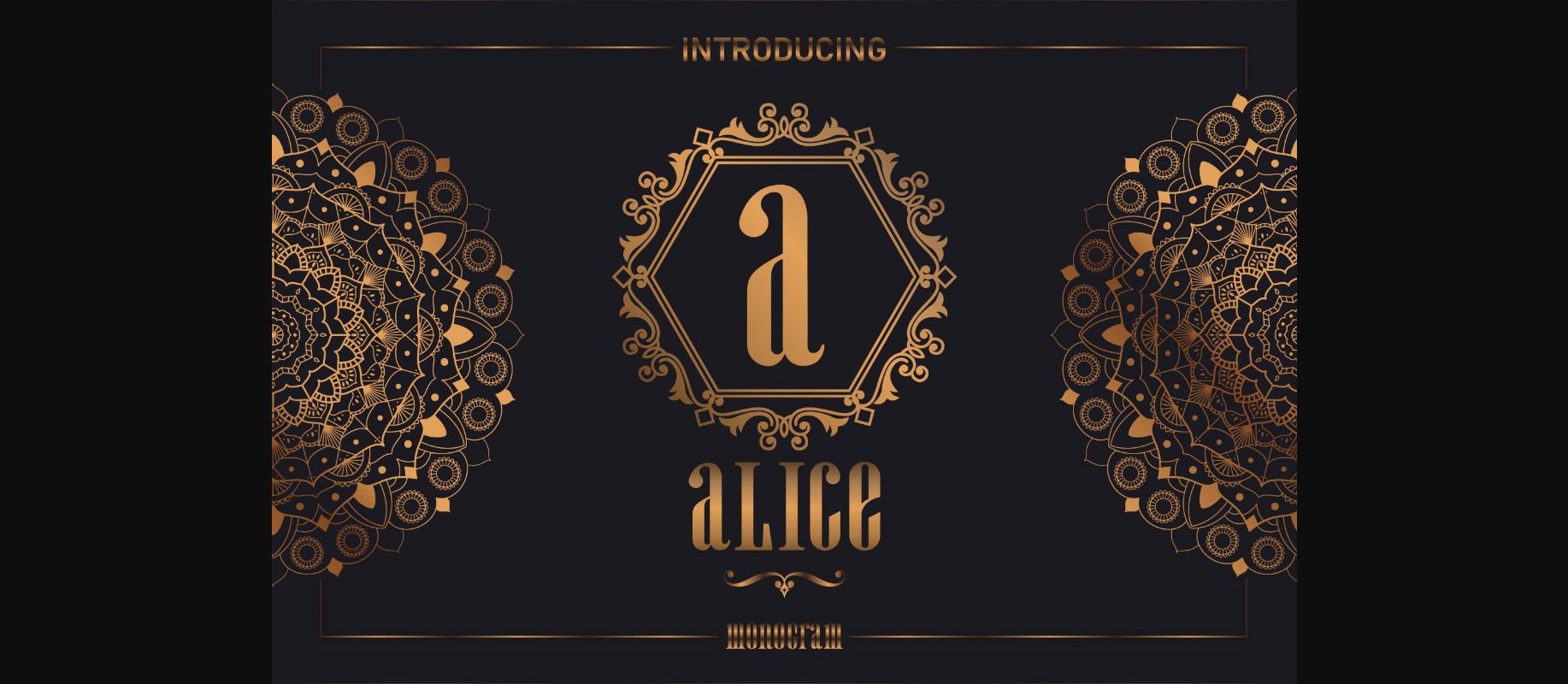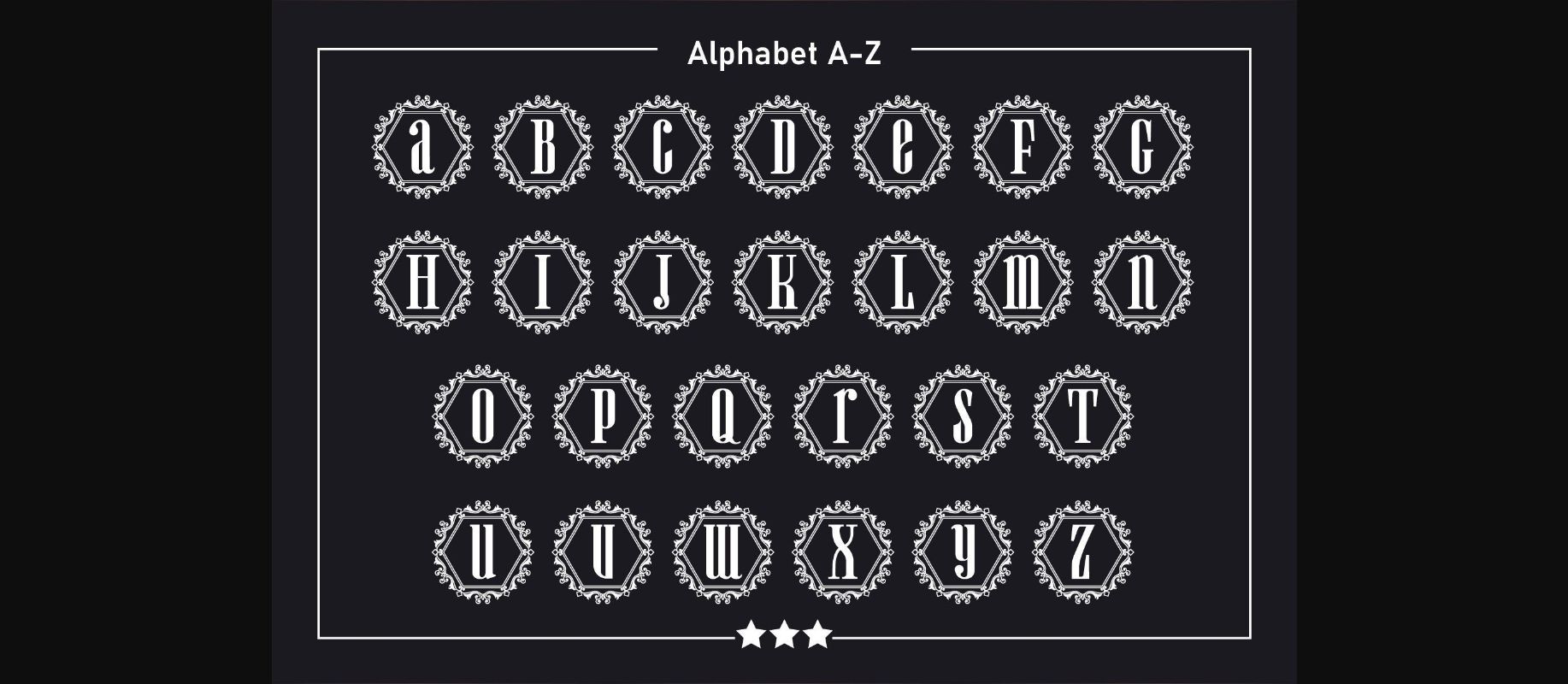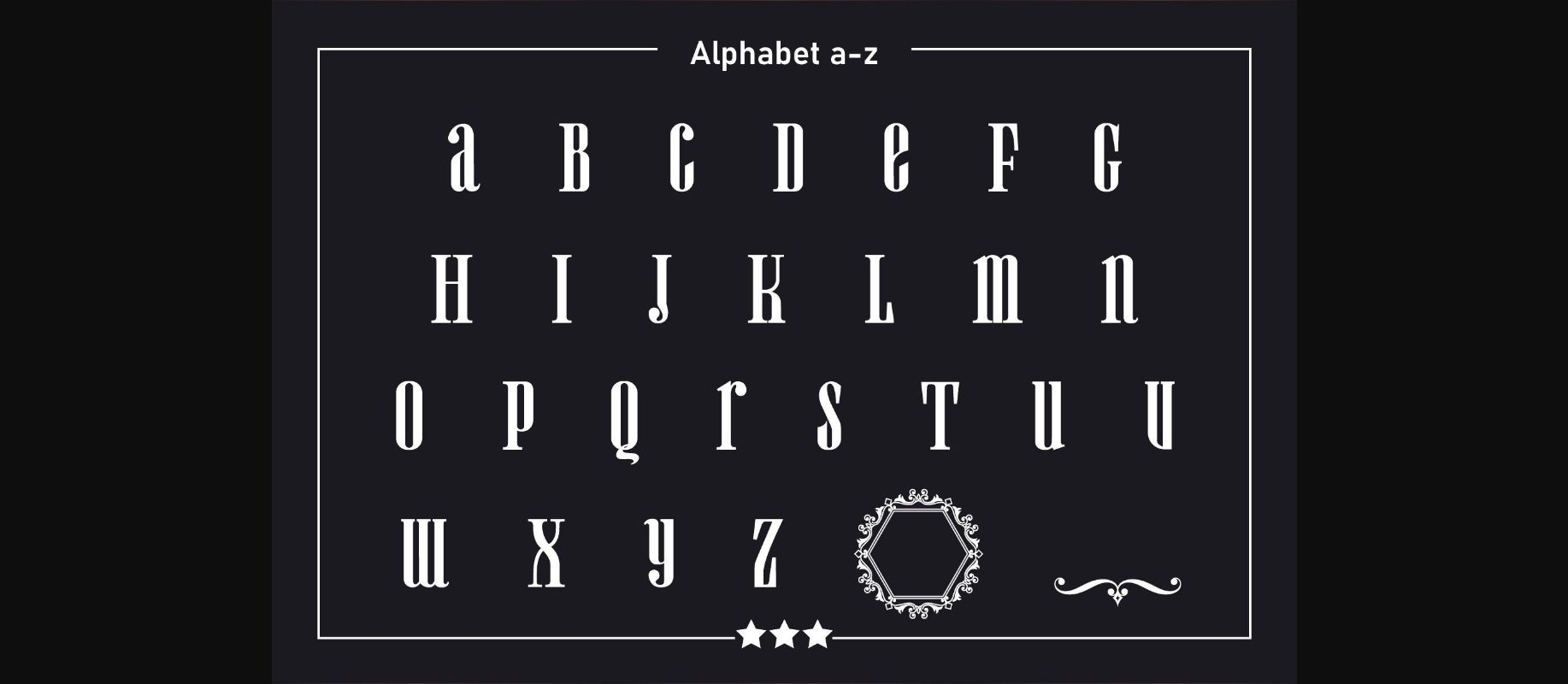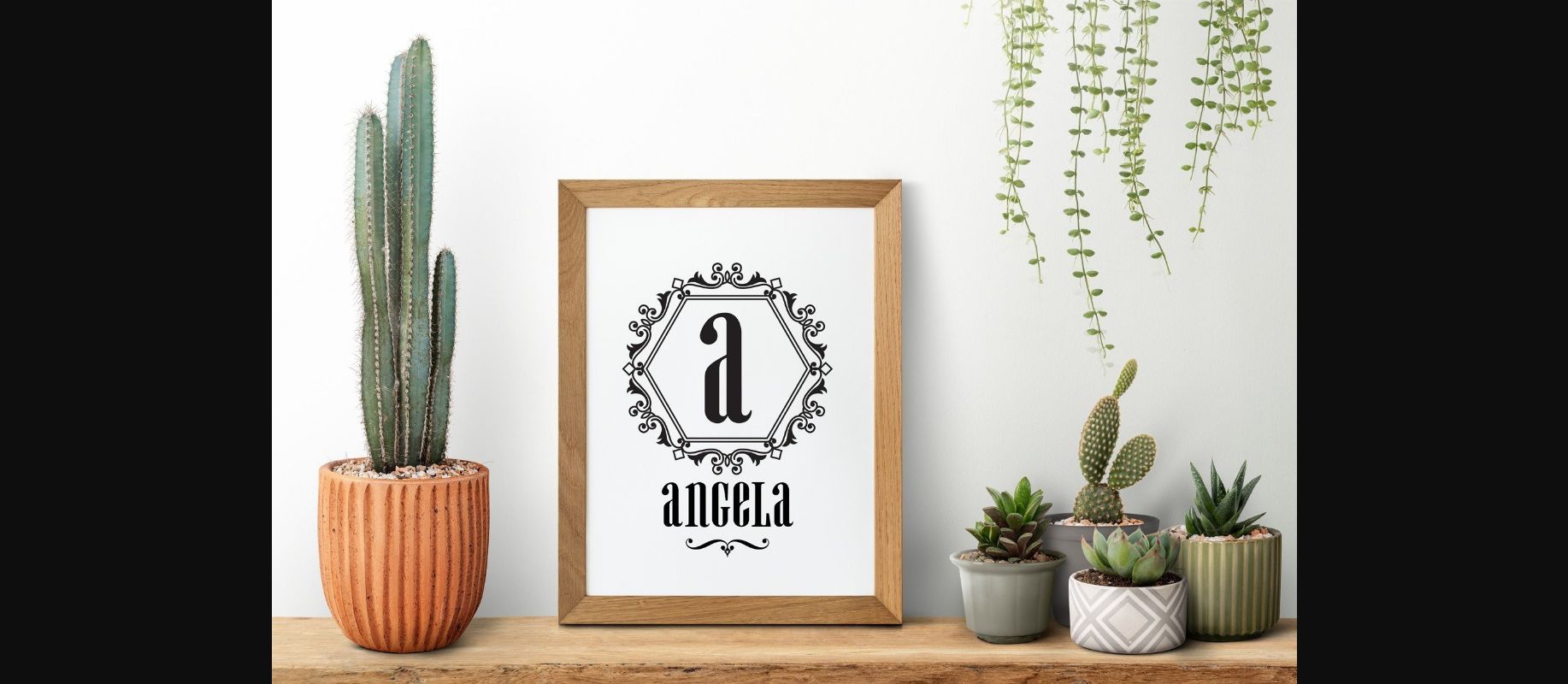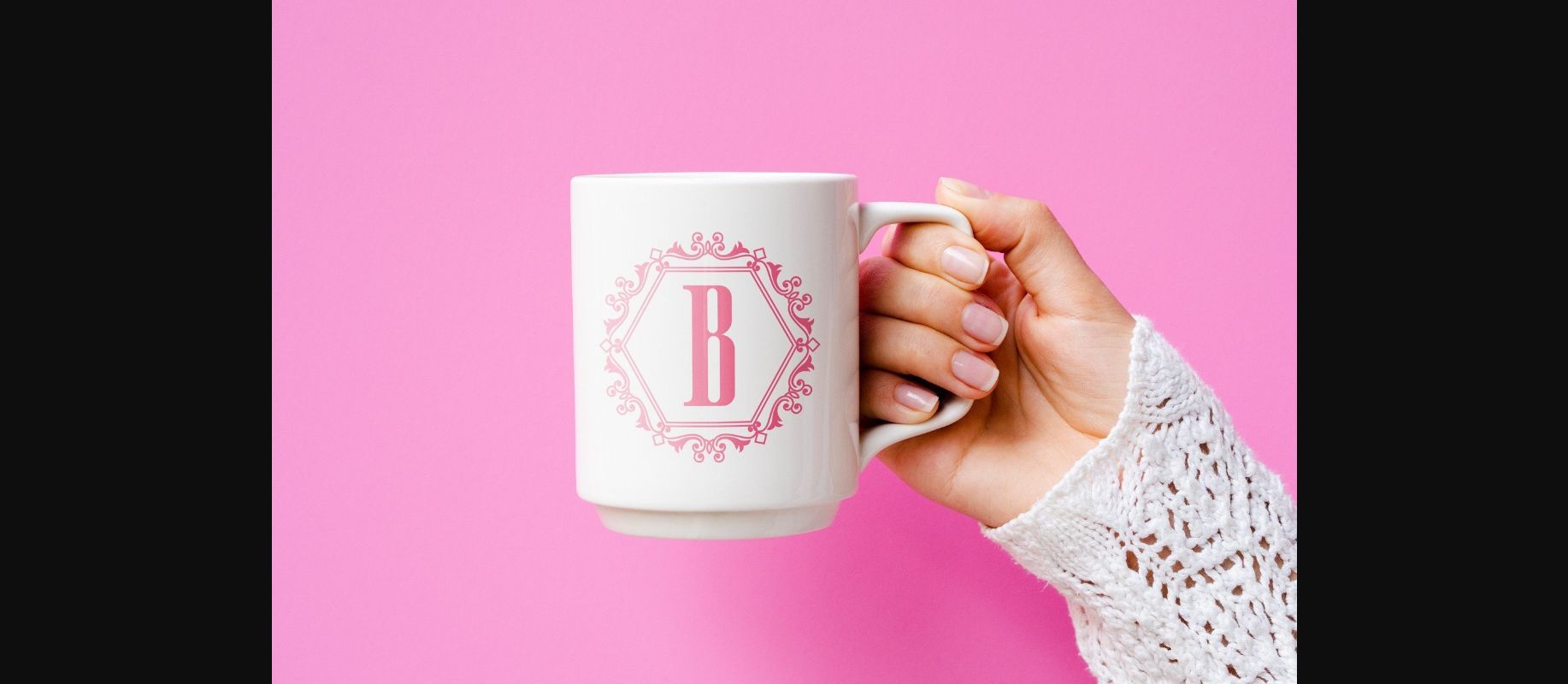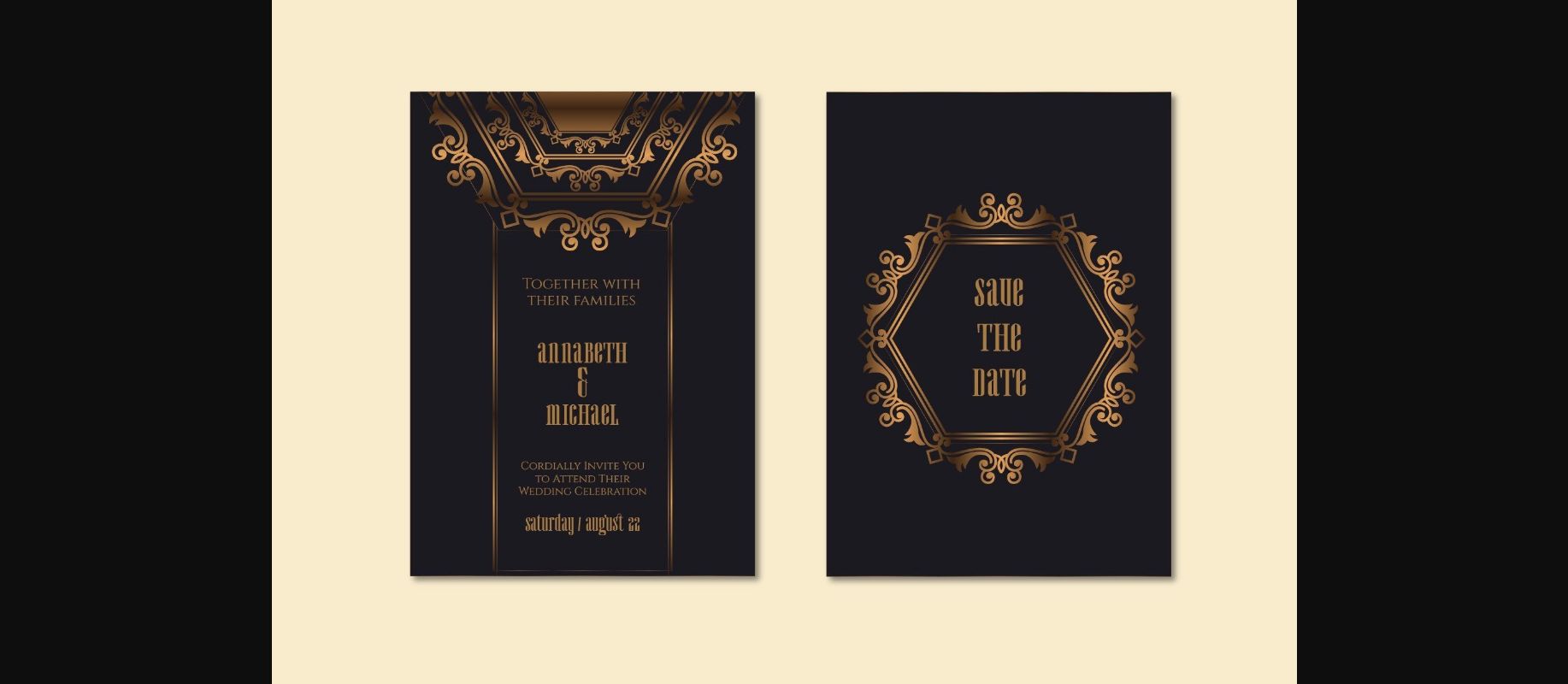
Alice Monogram is a beautiful vintage-style decorative font perfect for stylish and old-fashioned projects with a modern twist. Use it for logos, apparel designs, marketing materials, product packaging, and many more.